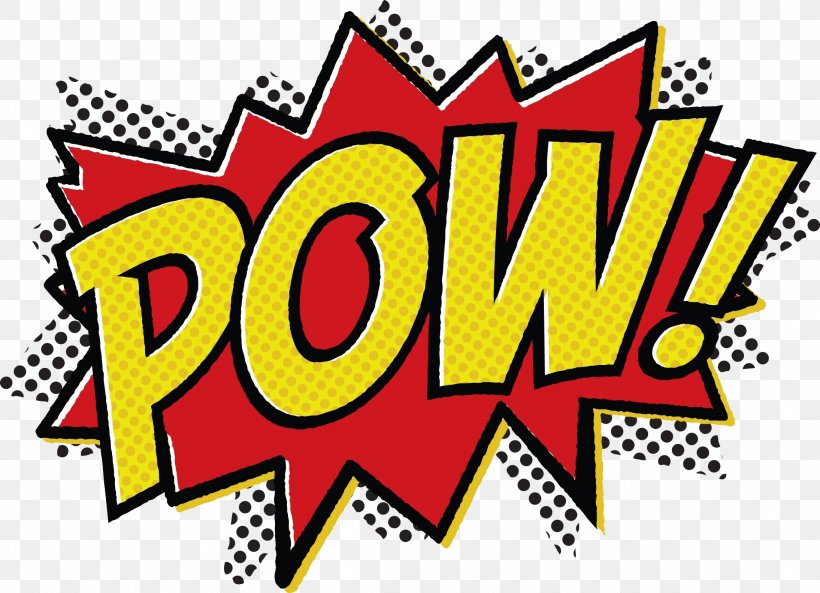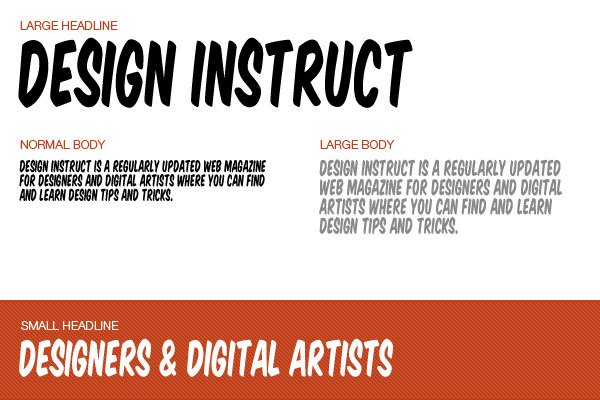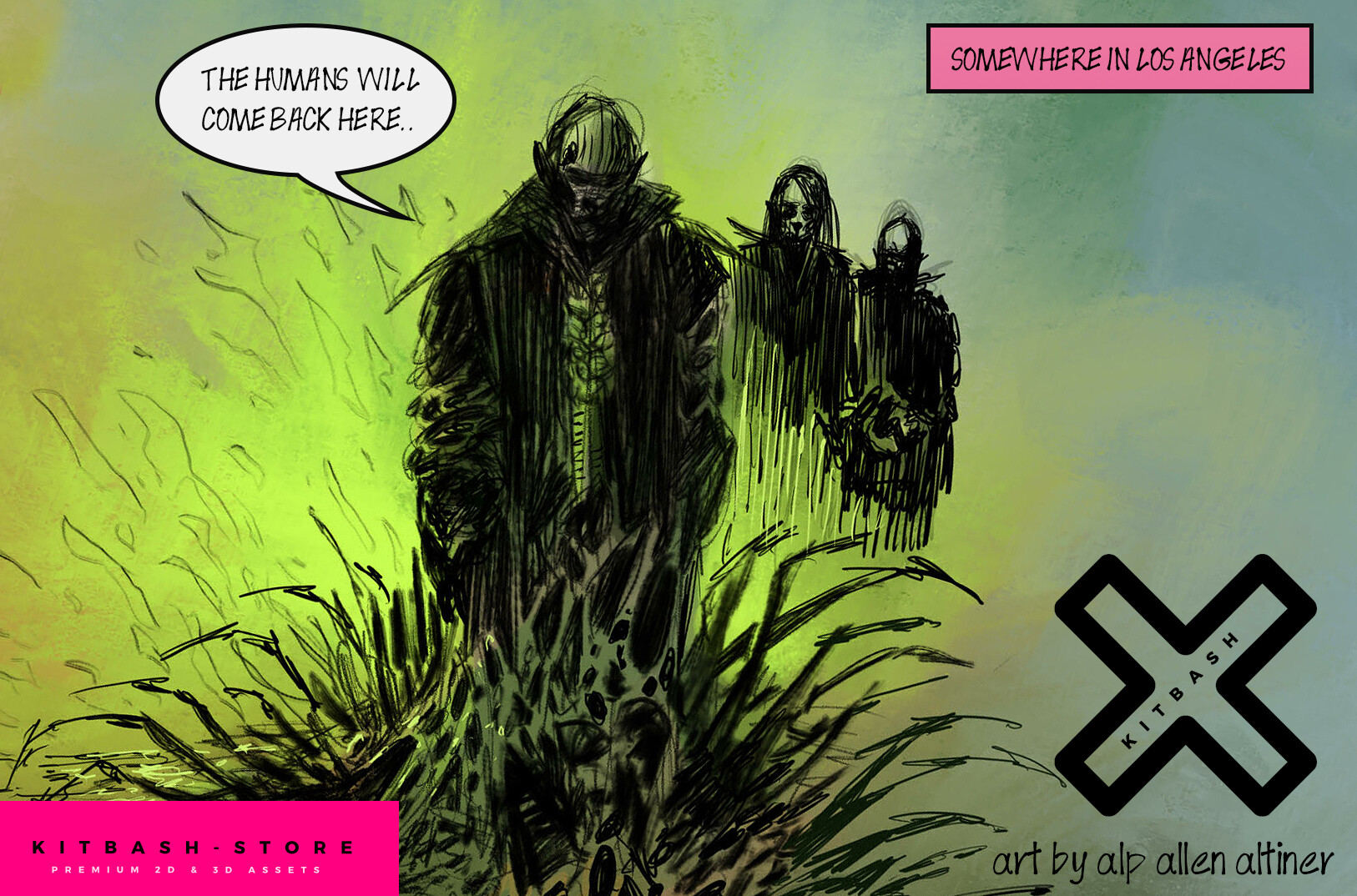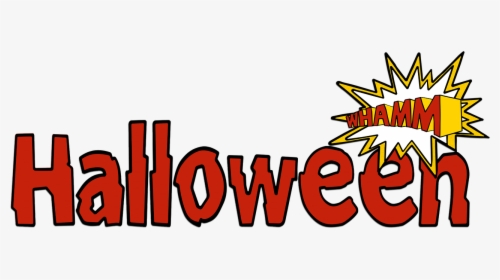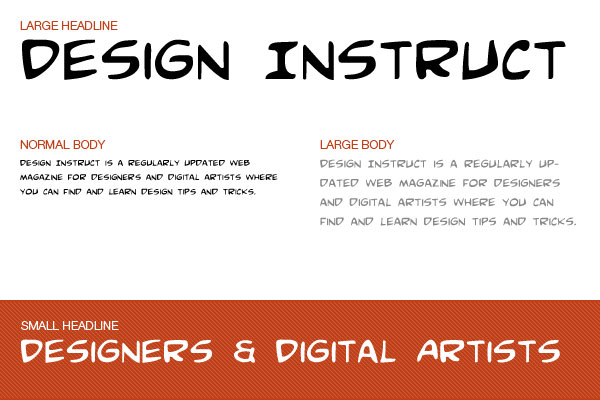
Includes full alphabet extended punctuation Euro. Nikopol Typeface on Envato Elements If youre working on a vintage style comic book the Nikopol font is the perfect choice.
Free fonts often have not all characters and signs and have no kerning pairs Avenue A venue Tea T ea. No hassle no fuss find thousands of high quality free fonts on Fontsc. Whether you are looking for DC or Marvel or just want to generate your own comic lettering go ahead and try these fonts out.
Download free fonts in Fancy Comic category from a list of 255 fonts. Comic Font Fonts from your favorite comics are here to download for free. Badaboom is the original comic book font thats been used worldwide in print and television use.
Version 330 - 4 February 2016. Includes bold italic and bold-italic versions. Comic Book lettering is a very distinctive style used in the speech bubbles in comics.
Comic Book Commando à by Iconian Fonts. The font can be downloaded for free if you plan on using it for non-commercial purposes or indie comic books. 25 Best Fonts for Comic Books and Cartoons Free Paid If youve watched enough cartoons or read comics books as a kid you know that the right font can add a touch of flair that a standard font just cant imitate.
Download free fonts for Mac Windows and Linux. It is designed to resemble the lettering of a typical comic classic book. The Comic Book font contains 250 beautifully designed characters.
All fonts are in TrueType format. 170384 downloads 21 yesterday Free for personal use - 8 font files. Comic Book is one of my first scan and build fonts but I unfortunately dont remember which comic book page I used to start work on it.
We have 35 free Comic Google-web Fonts to offer for direct downloading 1001 Fonts is your favorite site for free fonts since 2001. With our list of Comic Book Fonts and Cartoons Fonts you can draw ahead. Classic Comic font pairings About Description Rather than follow a particular comic book lettering model Classic Comics forms are constructed with the natural tilt and wider aperture of the slightly darker lettering found in older comics on either side of the Atlantic.